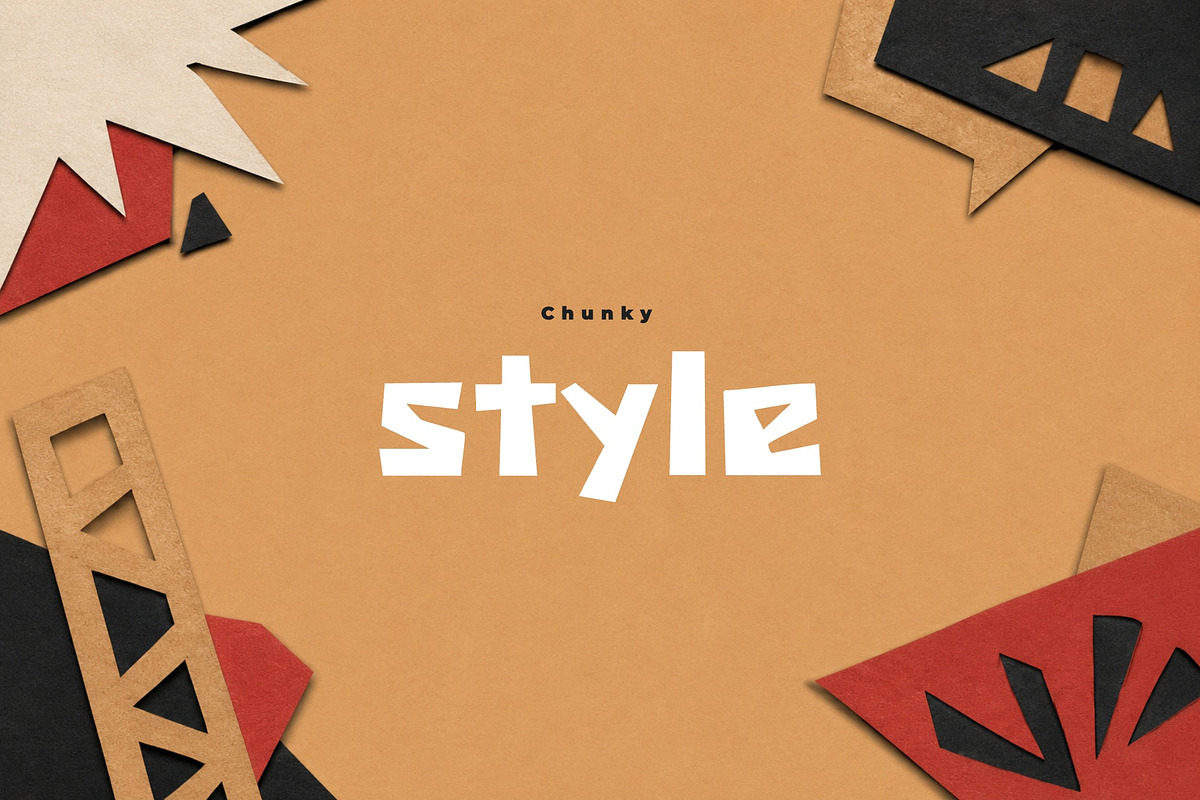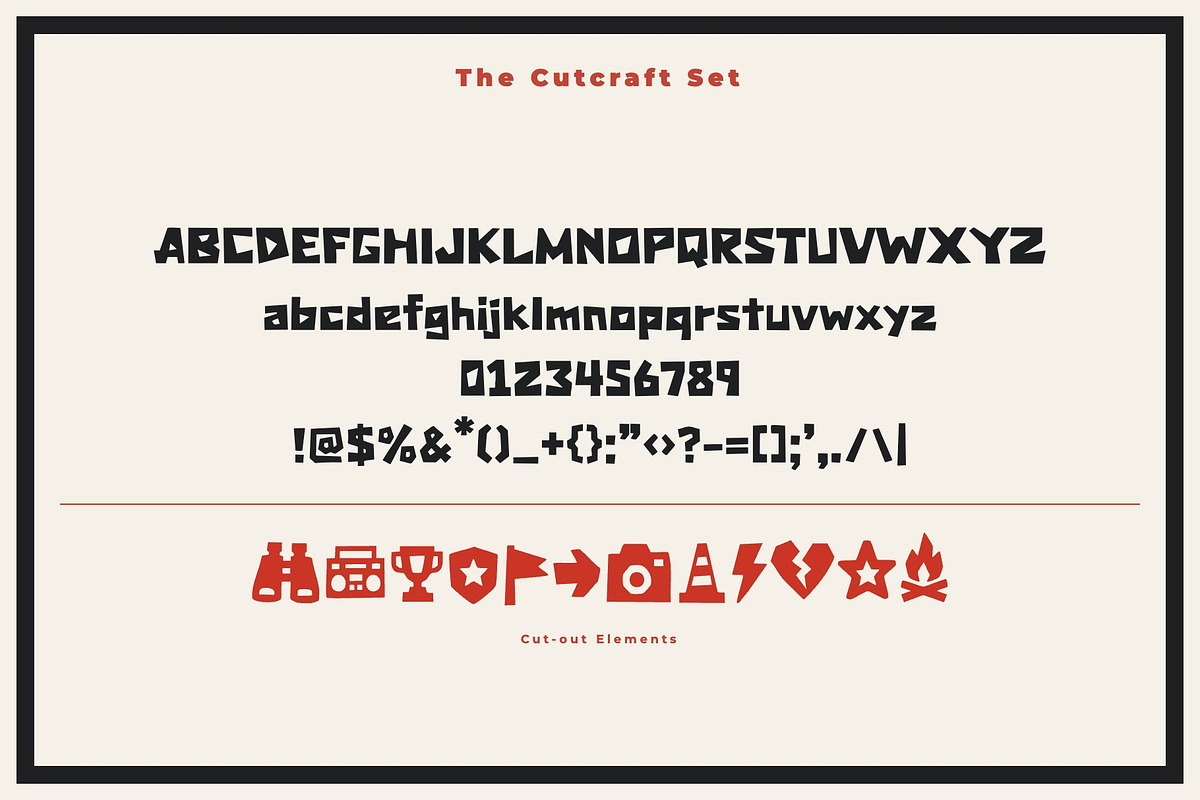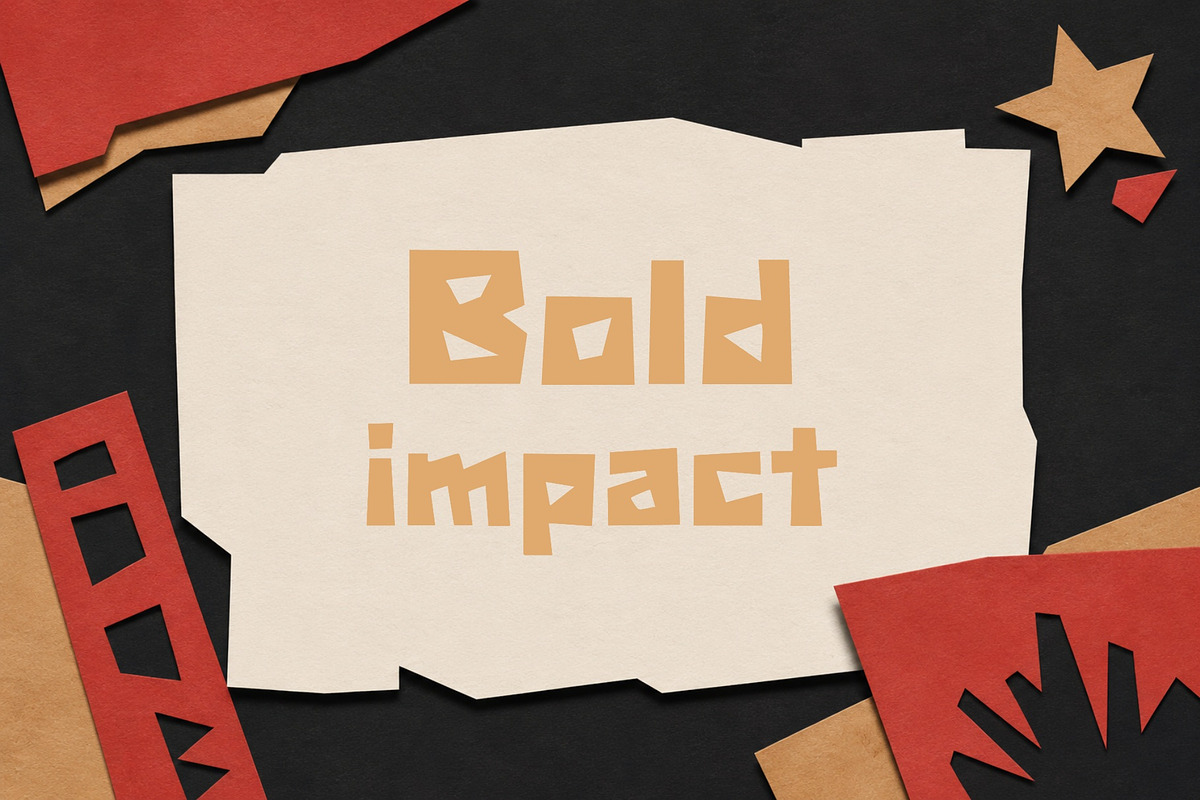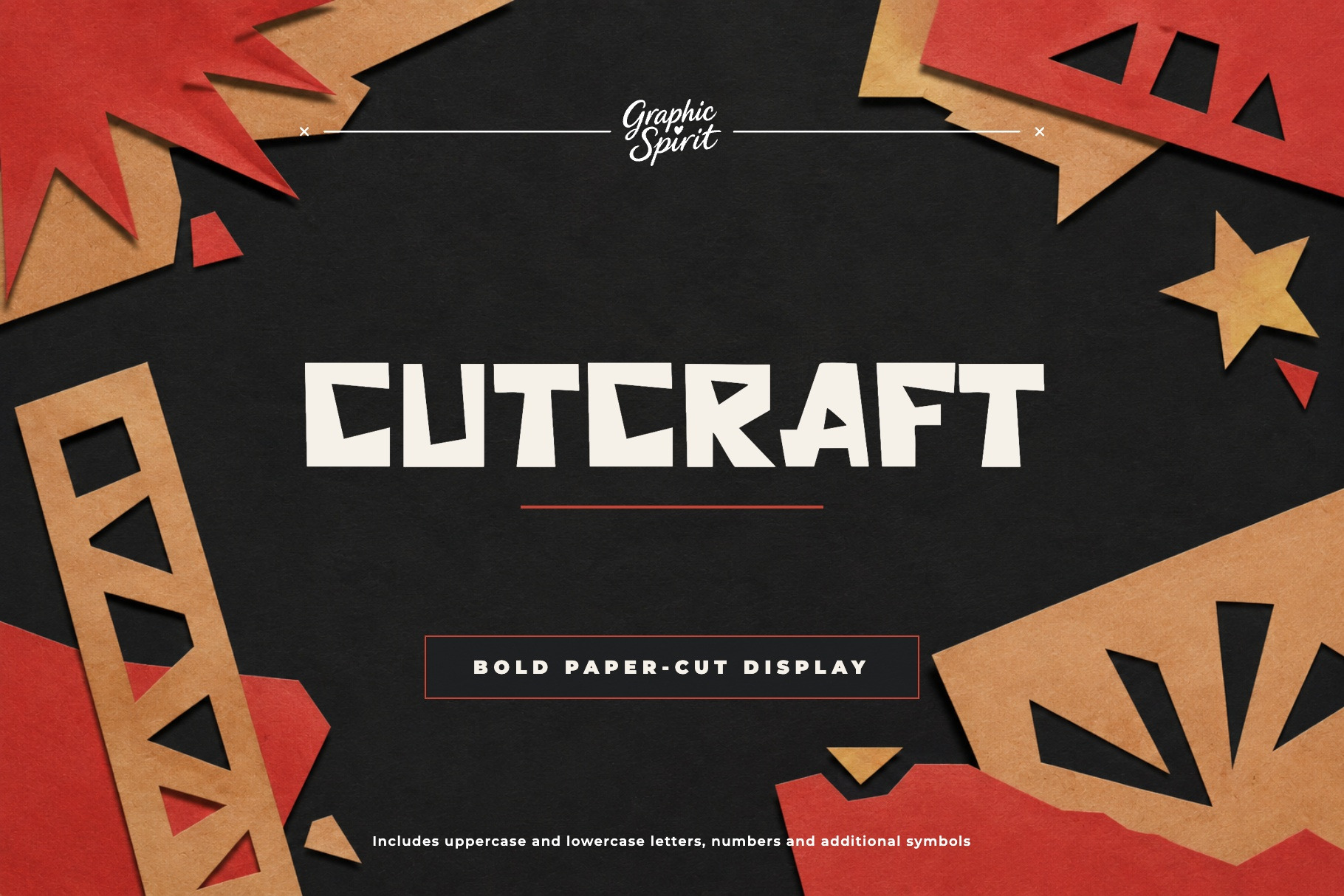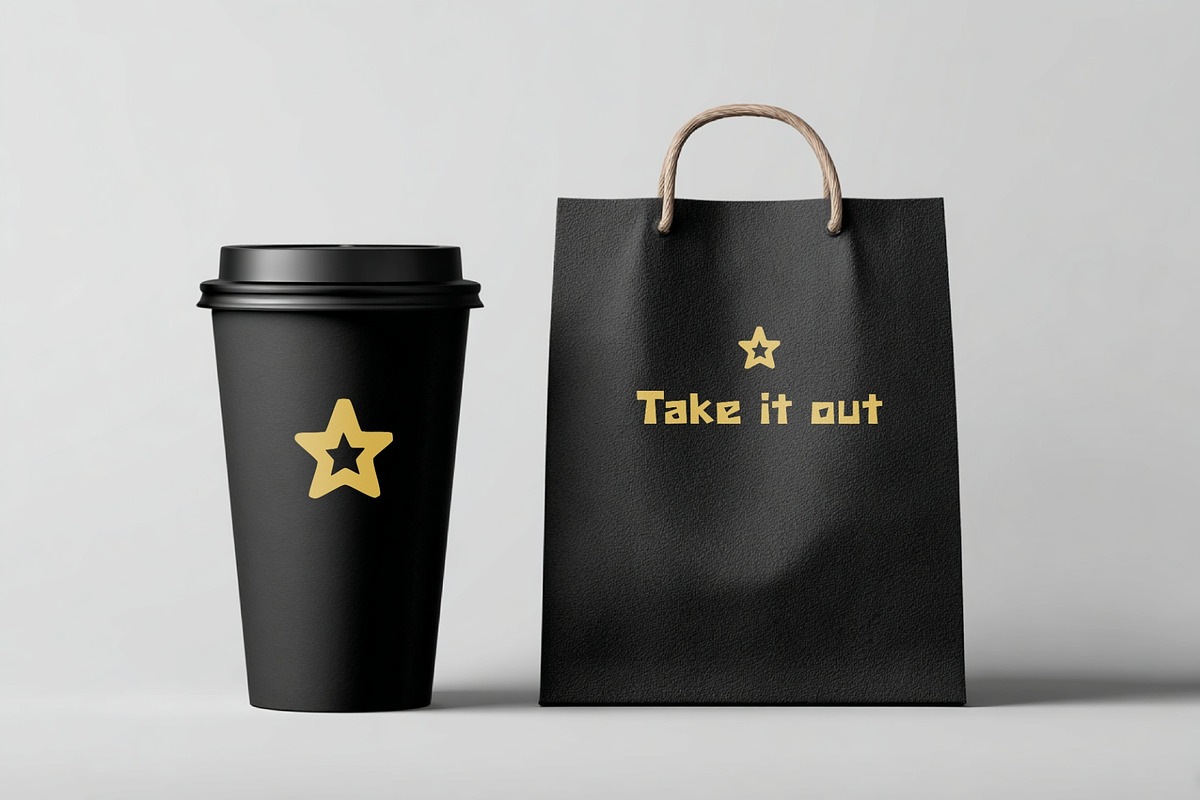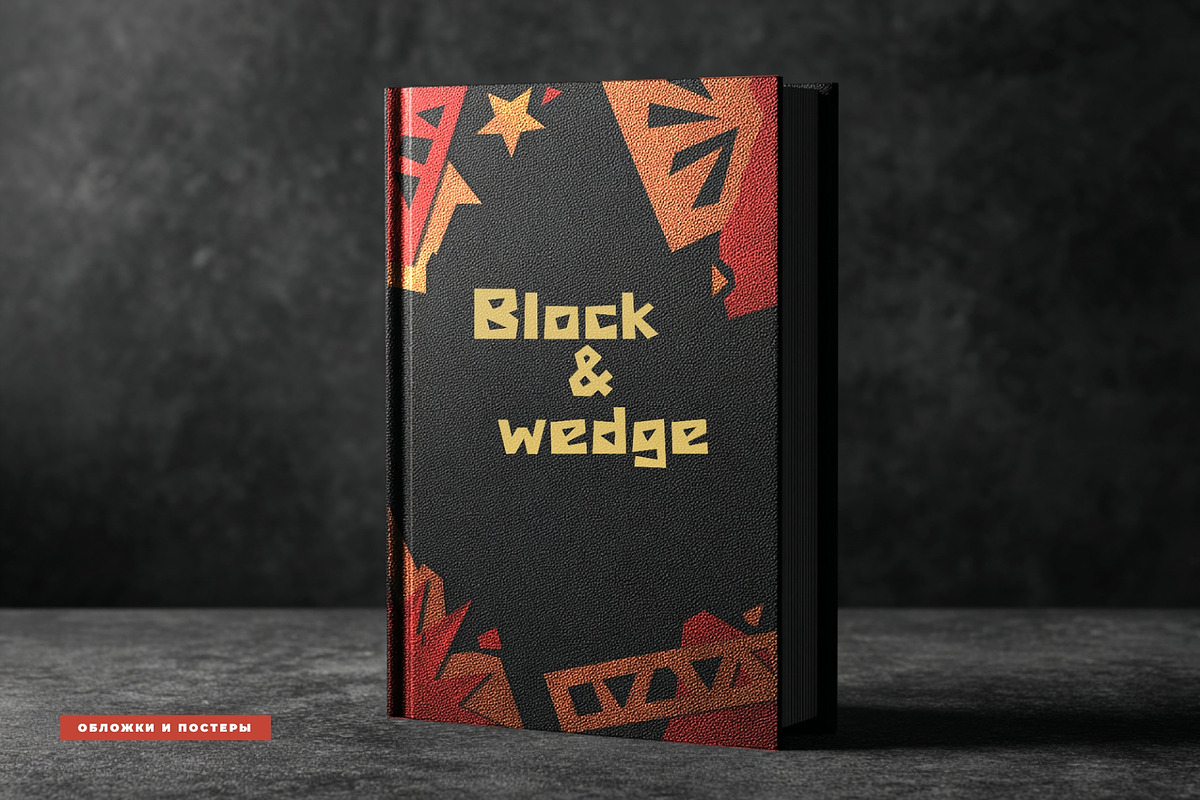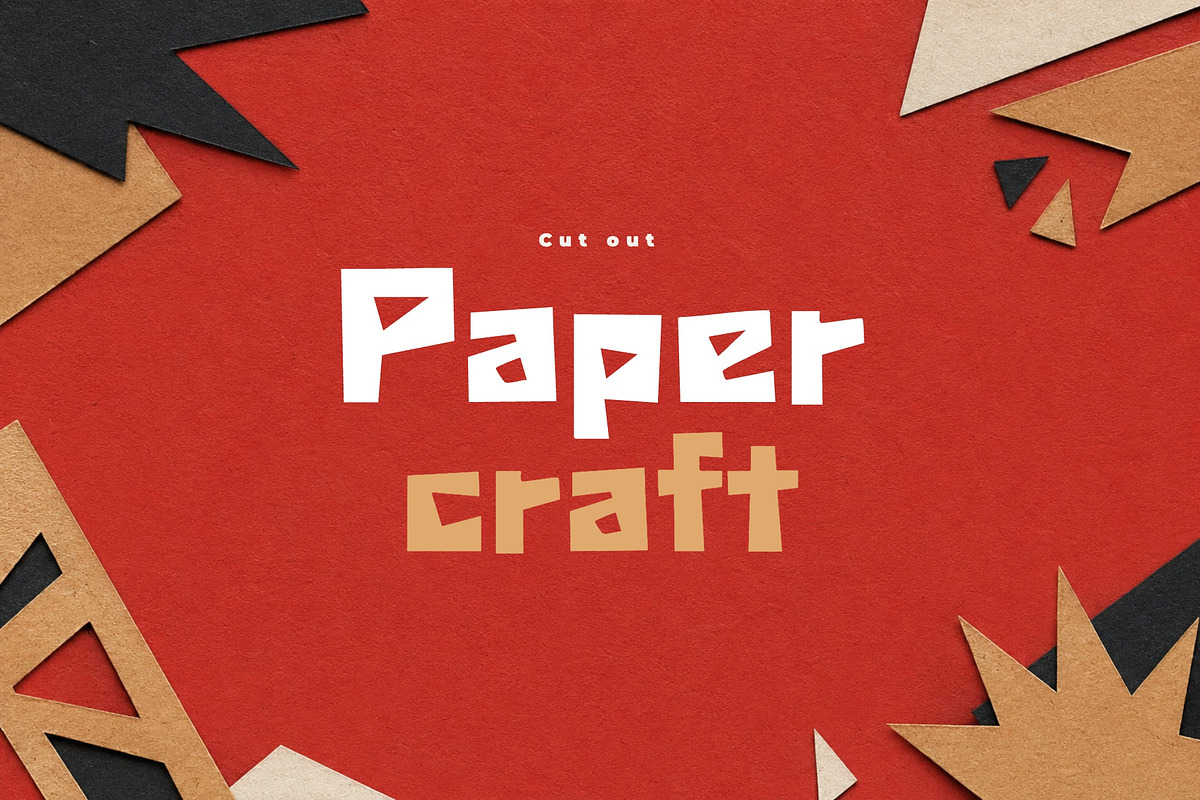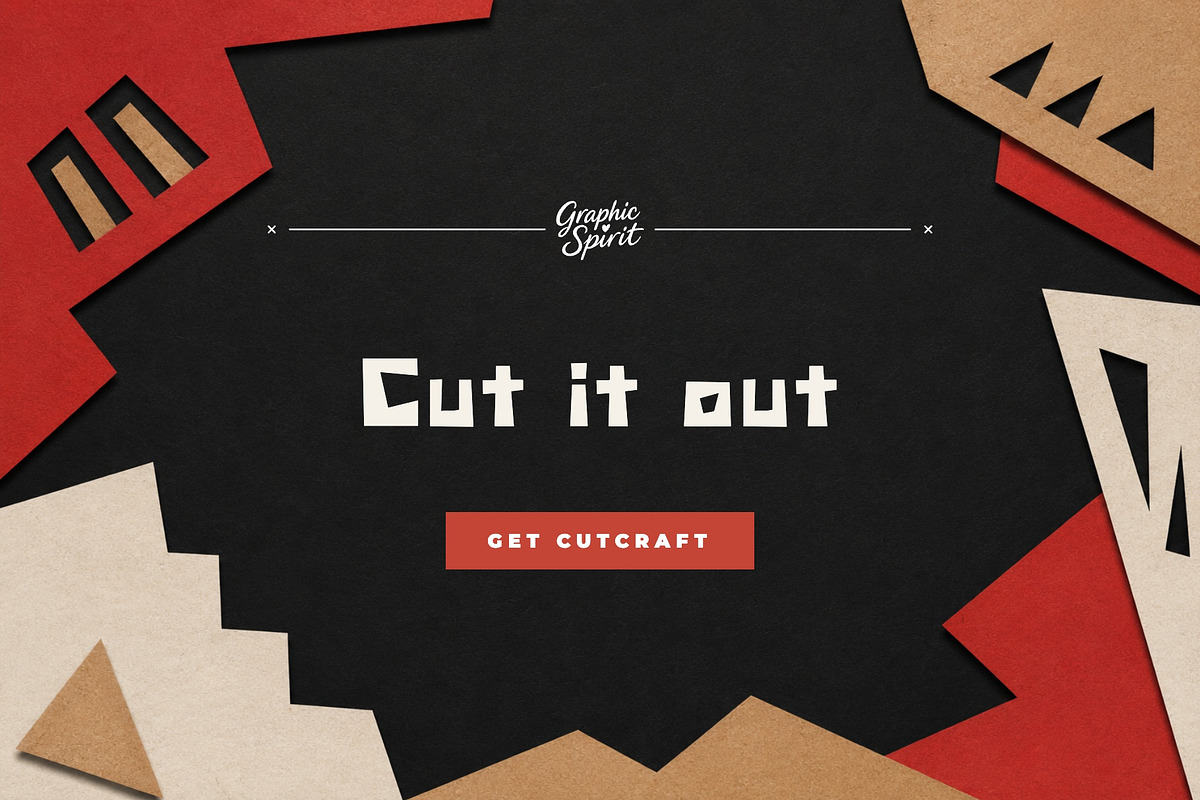
Cutcraft Font
✨ Cutcraft is a bold paper-cut display font with rough cutout edges, handmade craft contrast, and strong workshop attitude. It was created for designers, makers, and small brands who need expressive typography with a clear visual personality.
🎨 Cutcraft works beautifully for craft branding, DIY posters, workshop graphics, paper-cut packaging, kids products, creative labels, scrapbook titles, bold handmade logos. The style is strong enough for headlines and product names, but still friendly enough for approachable branding, packaging, posters, labels, social graphics, and creative layouts.
💛 The typeface has a distinct display rhythm, so even short words feel designed and intentional. It is a useful choice when you want a project to feel crafted, memorable, and visually specific.
Best for:
- ✂️ Paper-cut branding and handmade logos
- 🧰 Workshop graphics and DIY posters
- 📦 Craft packaging and product labels
- 🎨 Scrapbook titles and creative layouts
- 💪 Bold cutout display typography
Includes uppercase and lowercase letters, numbers, punctuation, and additional symbols shown in the previews.